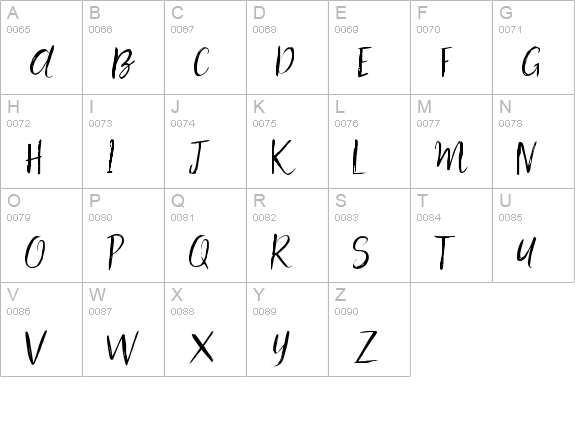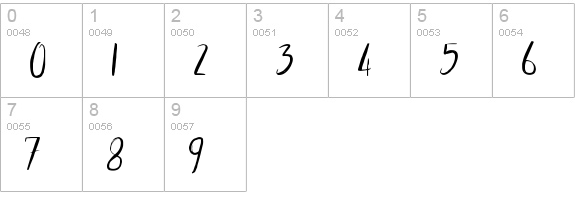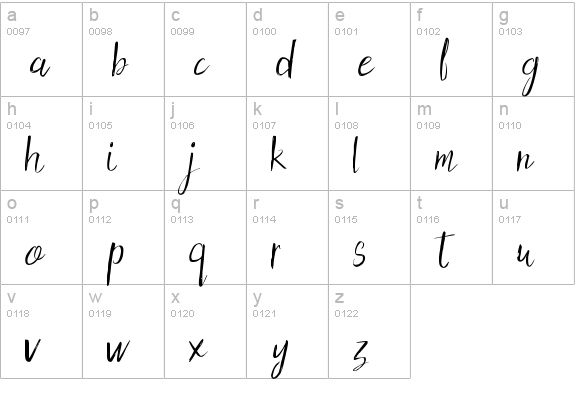
The Holy Mountain Style font is a stunning display font that exudes a sense of mystical elegance and timeless beauty. With its intricate details and ornate flourishes, this font is perfect for adding a touch of sophistication to your design projects. Whether you're creating invitations, posters, or branding materials, Holy Mountain Style font will surely make a lasting impression. The best part? Holy Mountain Style font is completely free to download at FontsMarket.com. Embrace the enchanting allure of this exquisite font and elevate your designs to new heights. Let your creativity flourish with the mesmerizing beauty of Holy Mountain Style font, now just a click away for you to use and enjoy.